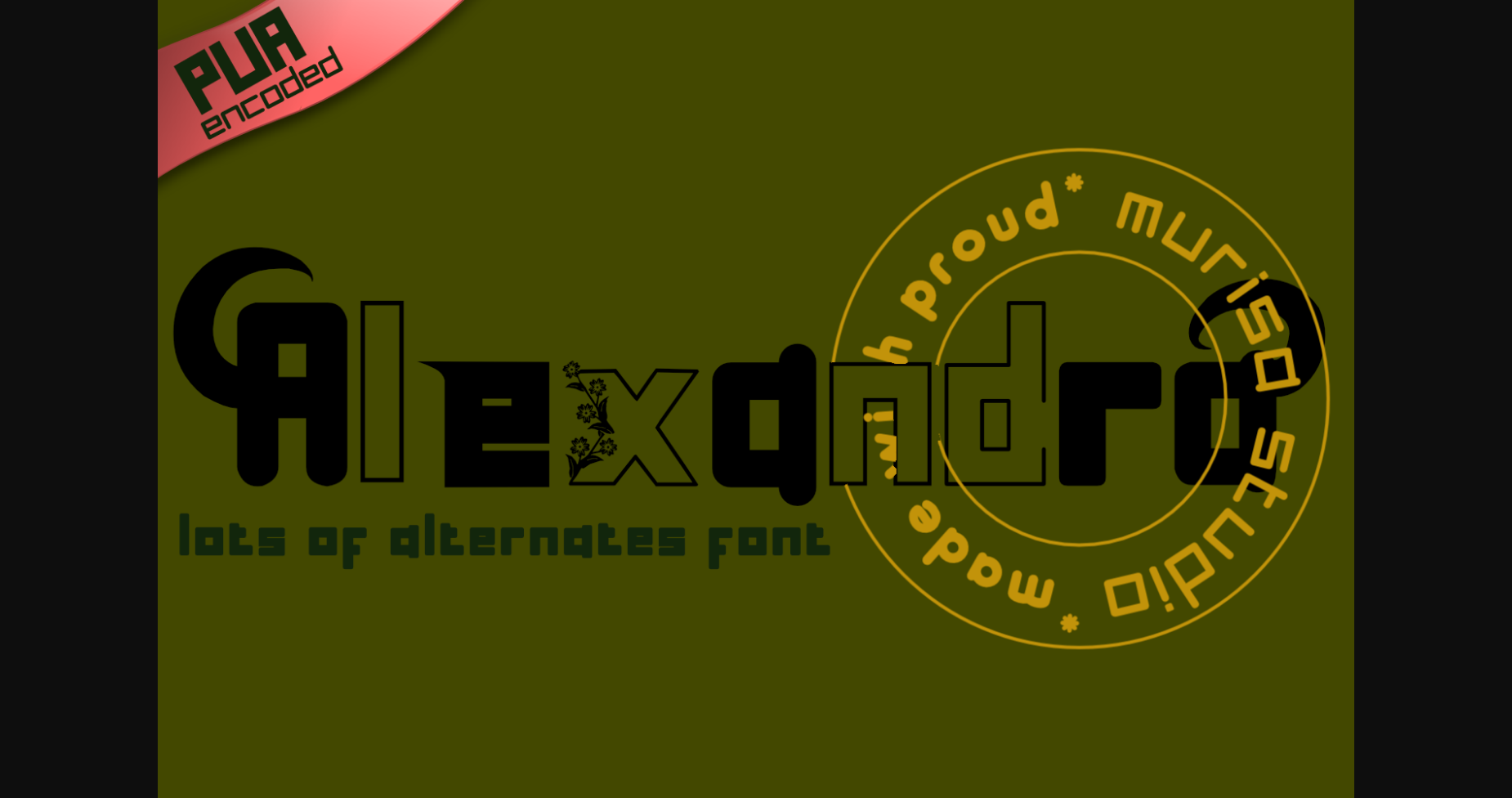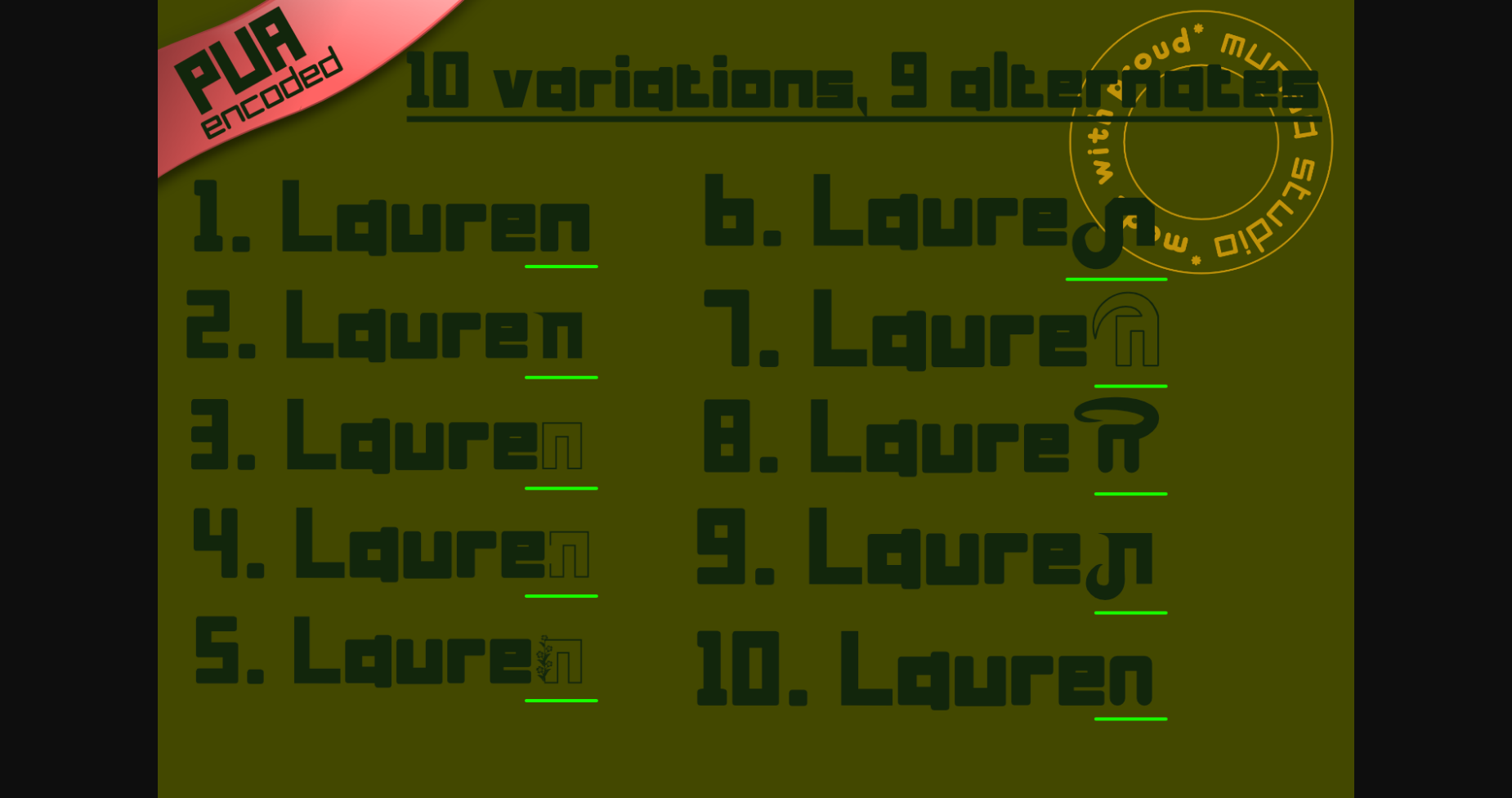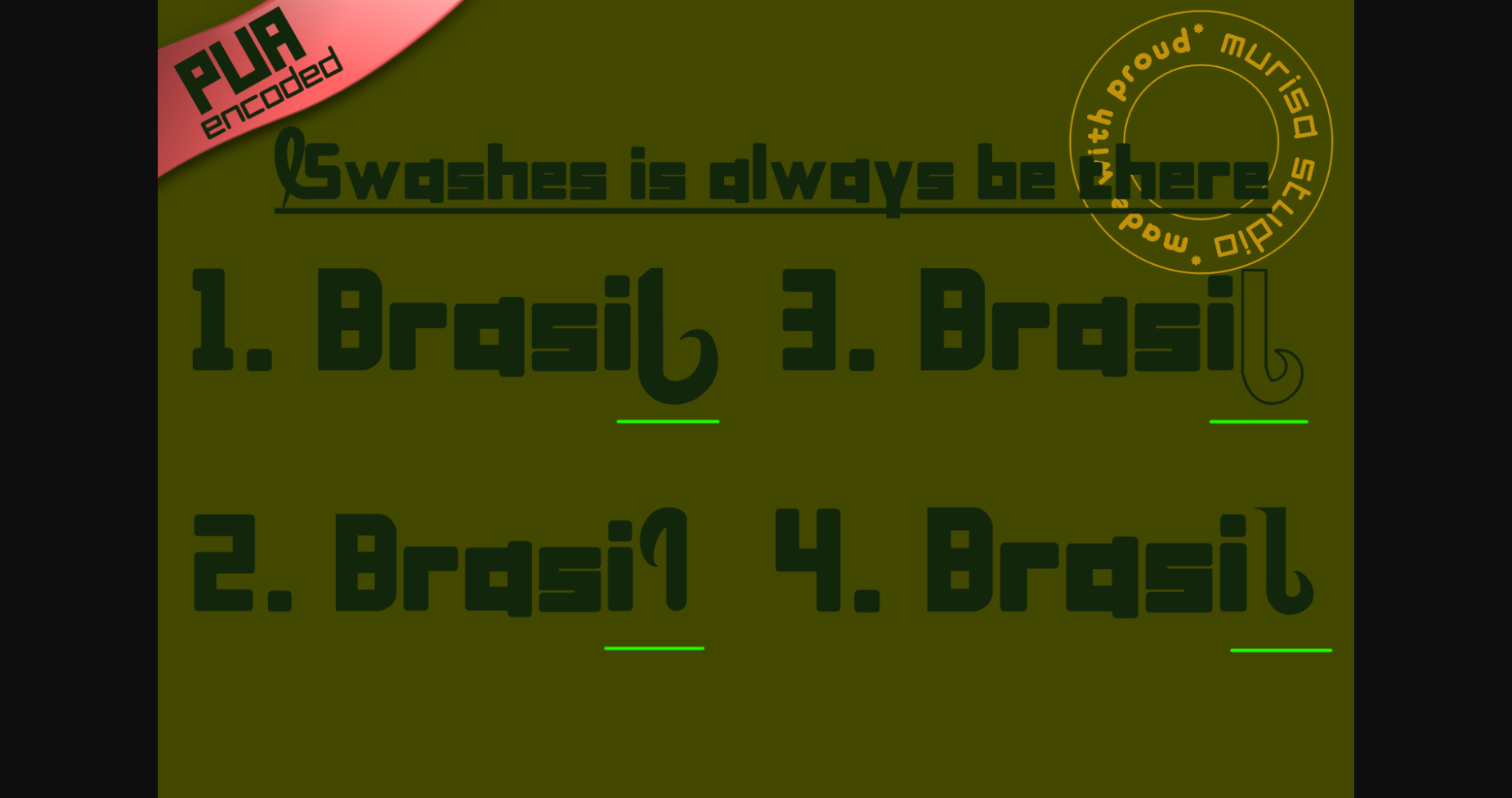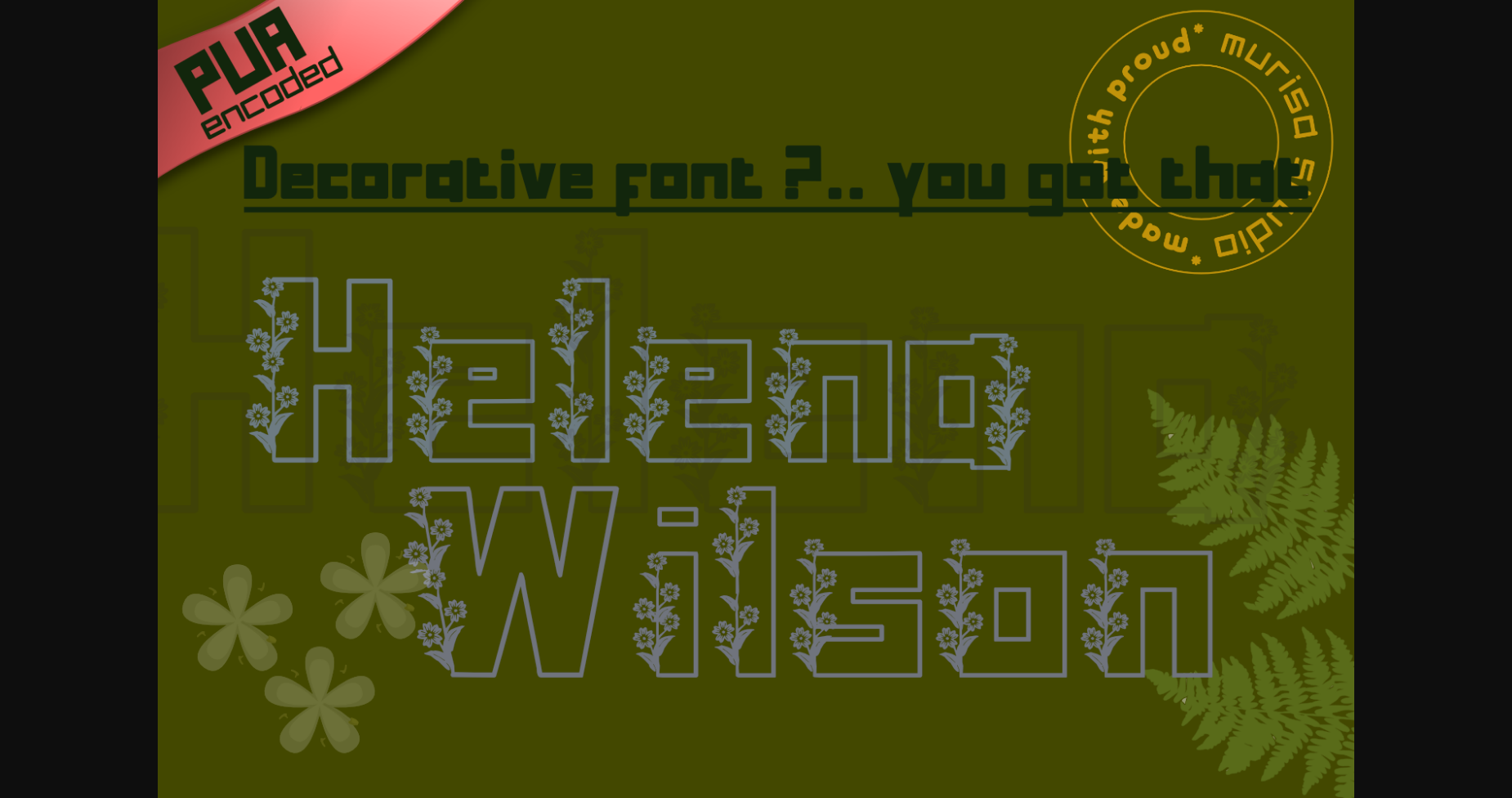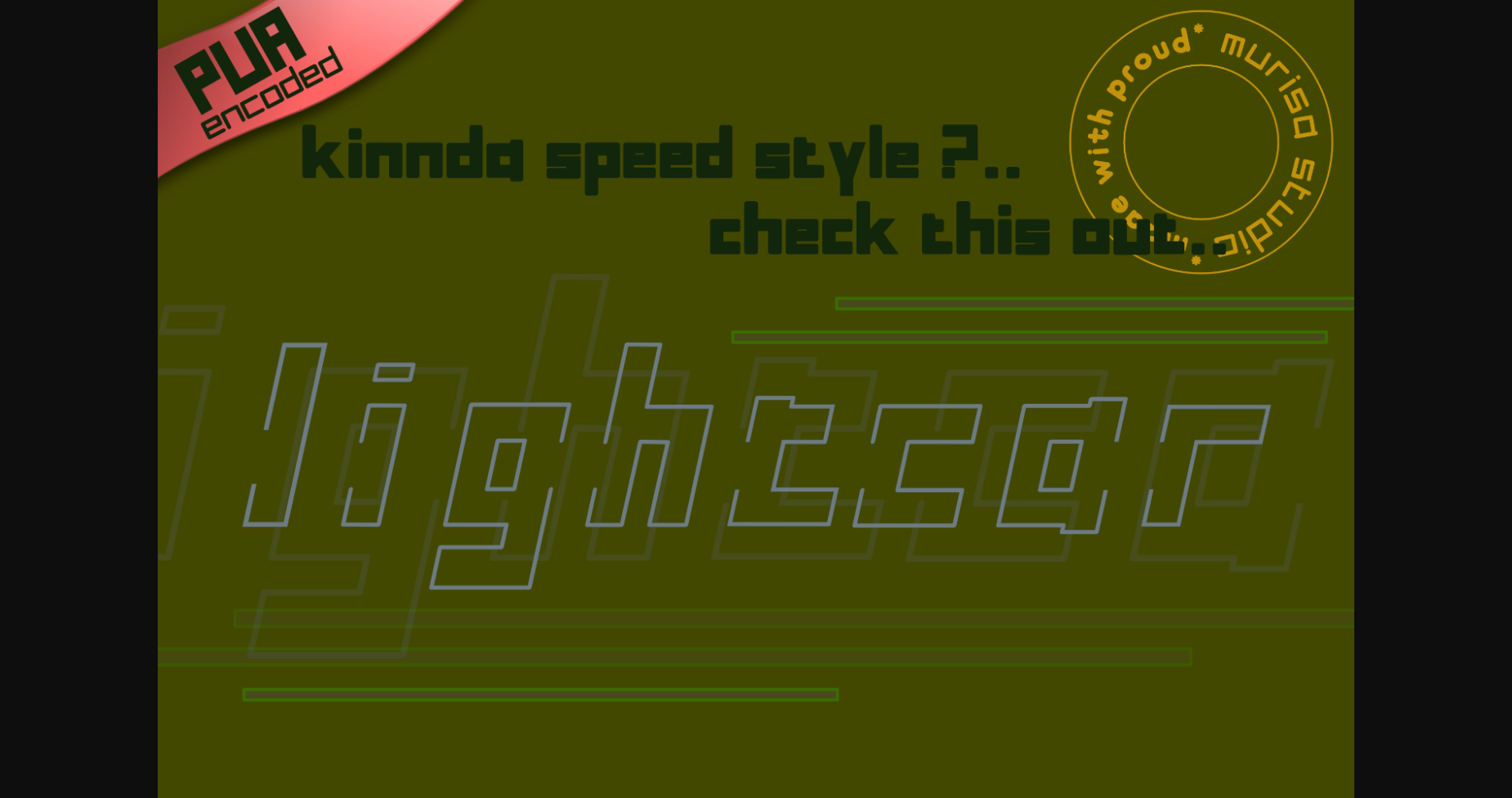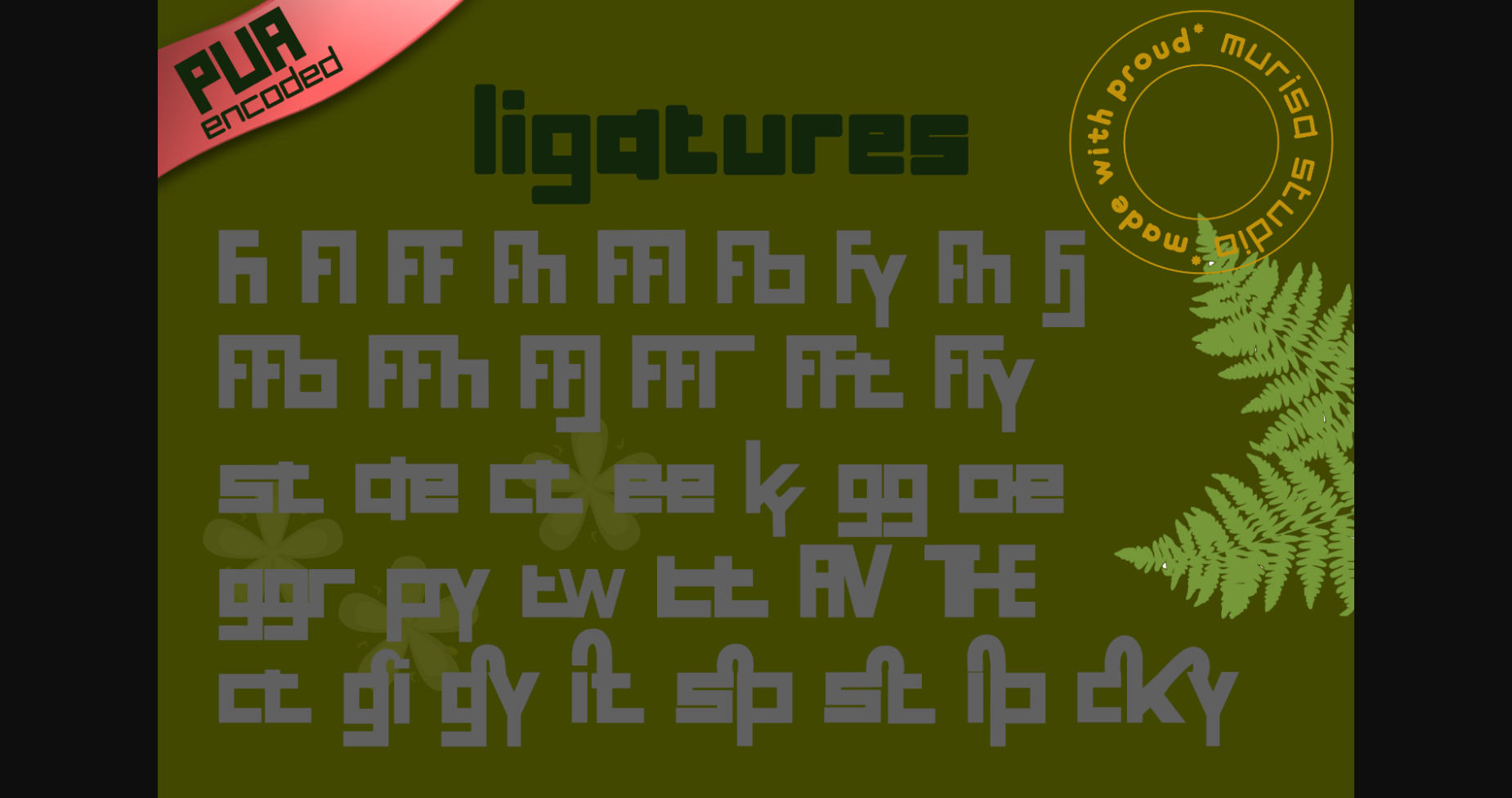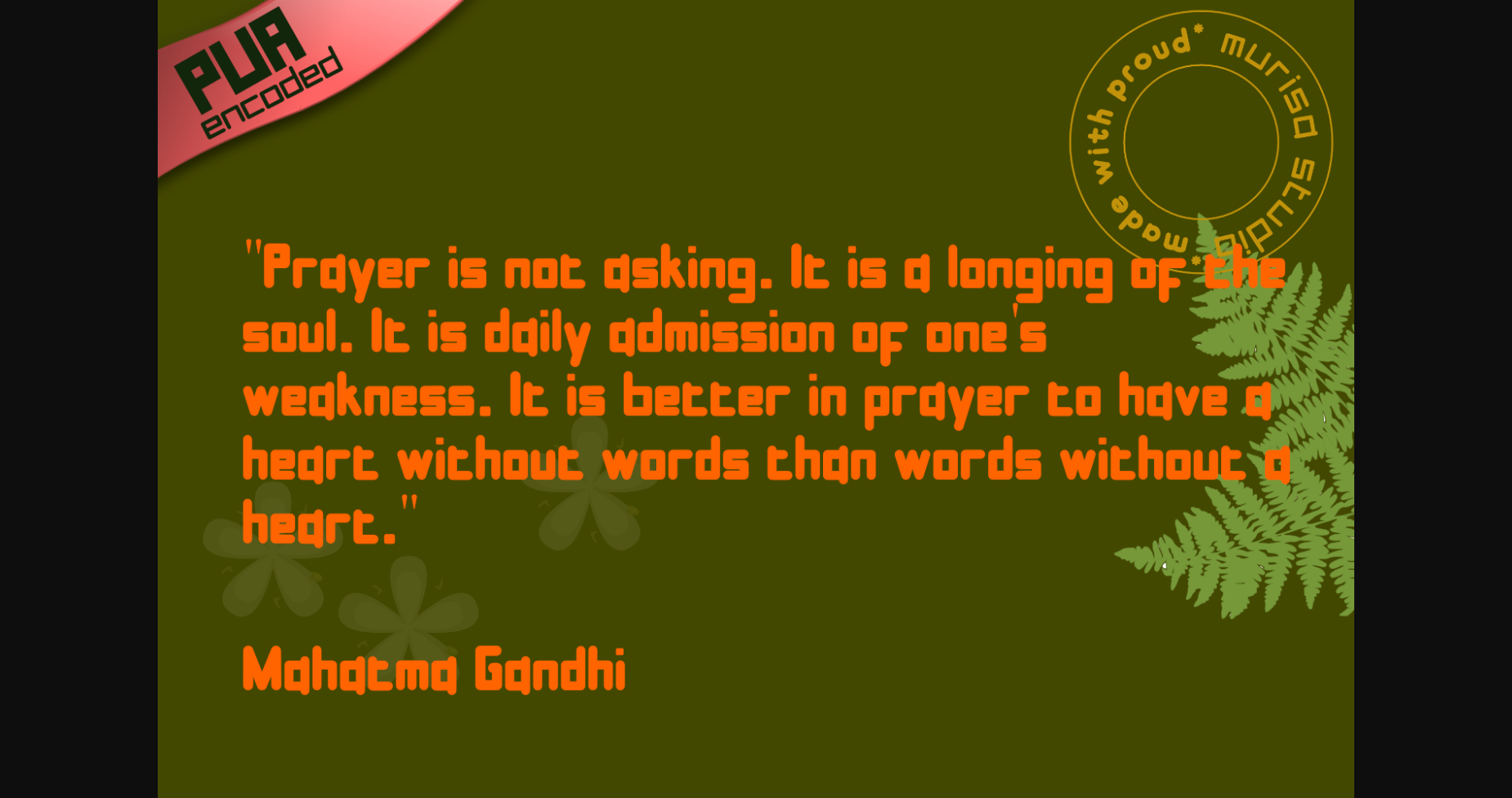
About Alexandra Font
Combining a strong font style with a beautiful and charming calligraphy style, Alexandra is the perfect sans serif font. You will be presented with various font styles, starting from a font that is sturdy and tough to decorative fonts that are beautiful to look at. Explore this font in such a way that it creates the perfect piece of work.
Alexandra, a font, a perfection.